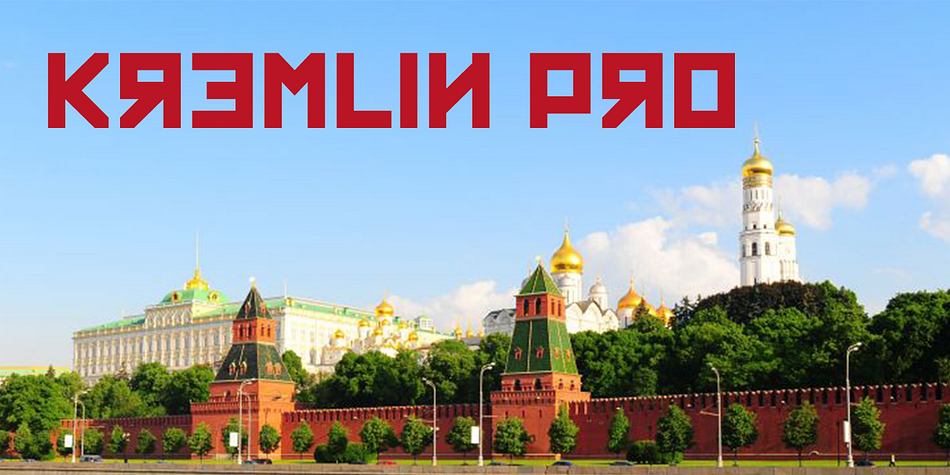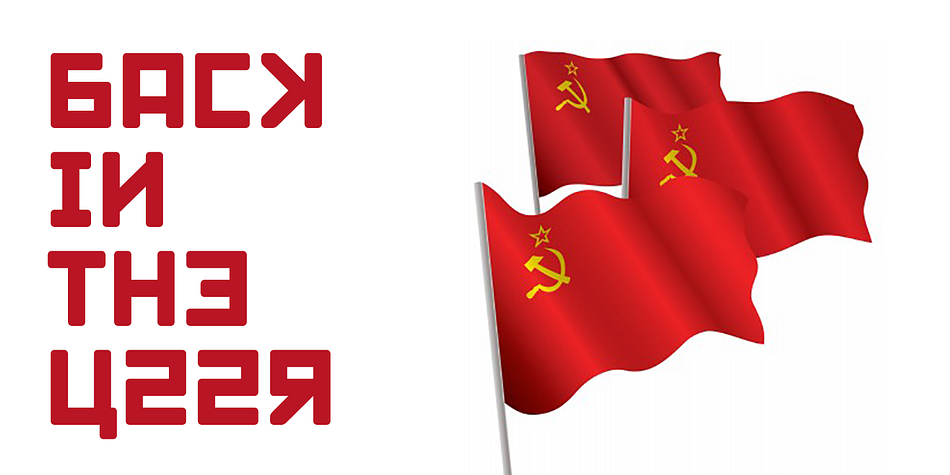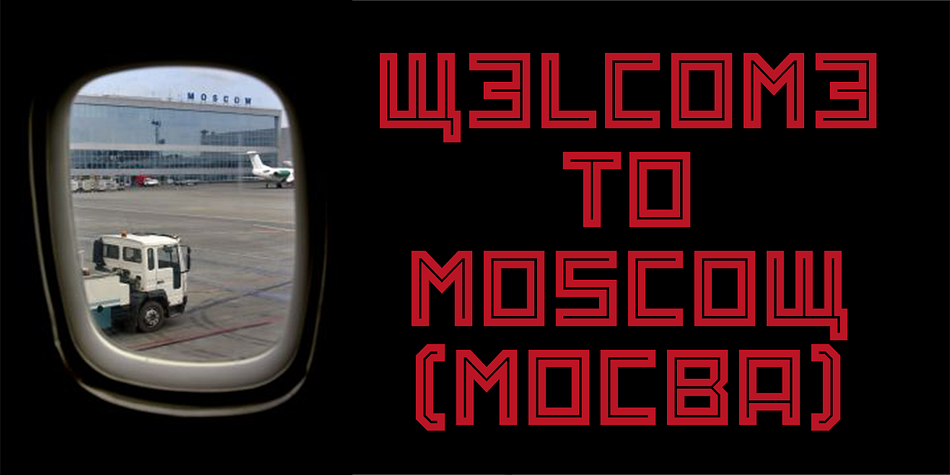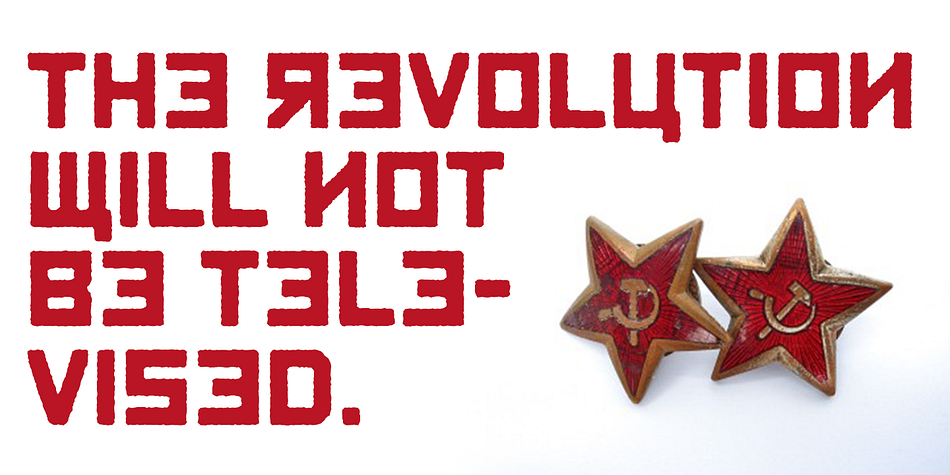
Kremlin Pro is a display and foreign font family. This typeface has four styles and was published by CheapProFonts.
Most uppercase letters of these constructivist fonts are made to look like cyrillic letters, so by carefully interspersing those you can set your text and headlines with it and make it look russian! To a native russian this of course looks very silly indeed, so to make amends for toying with their letters I have also included a full proper and genuine cyrillic character set. So these are the first CheapProFonts fonts to support languages using the cyrillic script in addition to the usual 65 latin-based languages.
Check out Kremlin II Pro for a version with different designs for these glyphs: ¡ ¿ 0 3 6 9 K k M m N n R r V v X x ? !